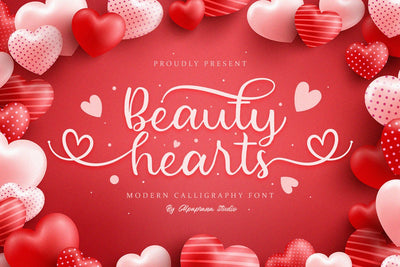
Beauty Hearts - Modern Calligraphy Font
Beauty Hearts is a stunning and cute handwritten font with authentic and casual feels. It will be perfectly used for Branding, Logo Design, Lettering, Logotype, Clothing, Poster, magazine, packaging, posters, shopping bags, t-shirts, book covers, photography, special events, and other design project.